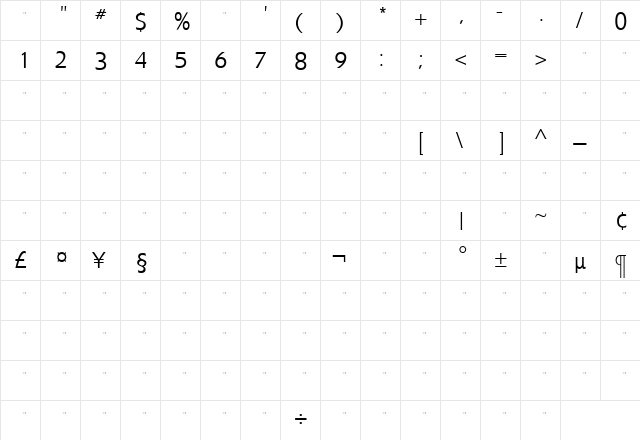
ExtensionLightTab Roman
Design Context for ExtensionLightTab Typeface
ExtensionLightTab takes a measured approach to typography — its balanced proportions and neutral character make it a reliable workhorse for both digital and print work. The delicate stroke weight brings airiness and refinement to layouts.